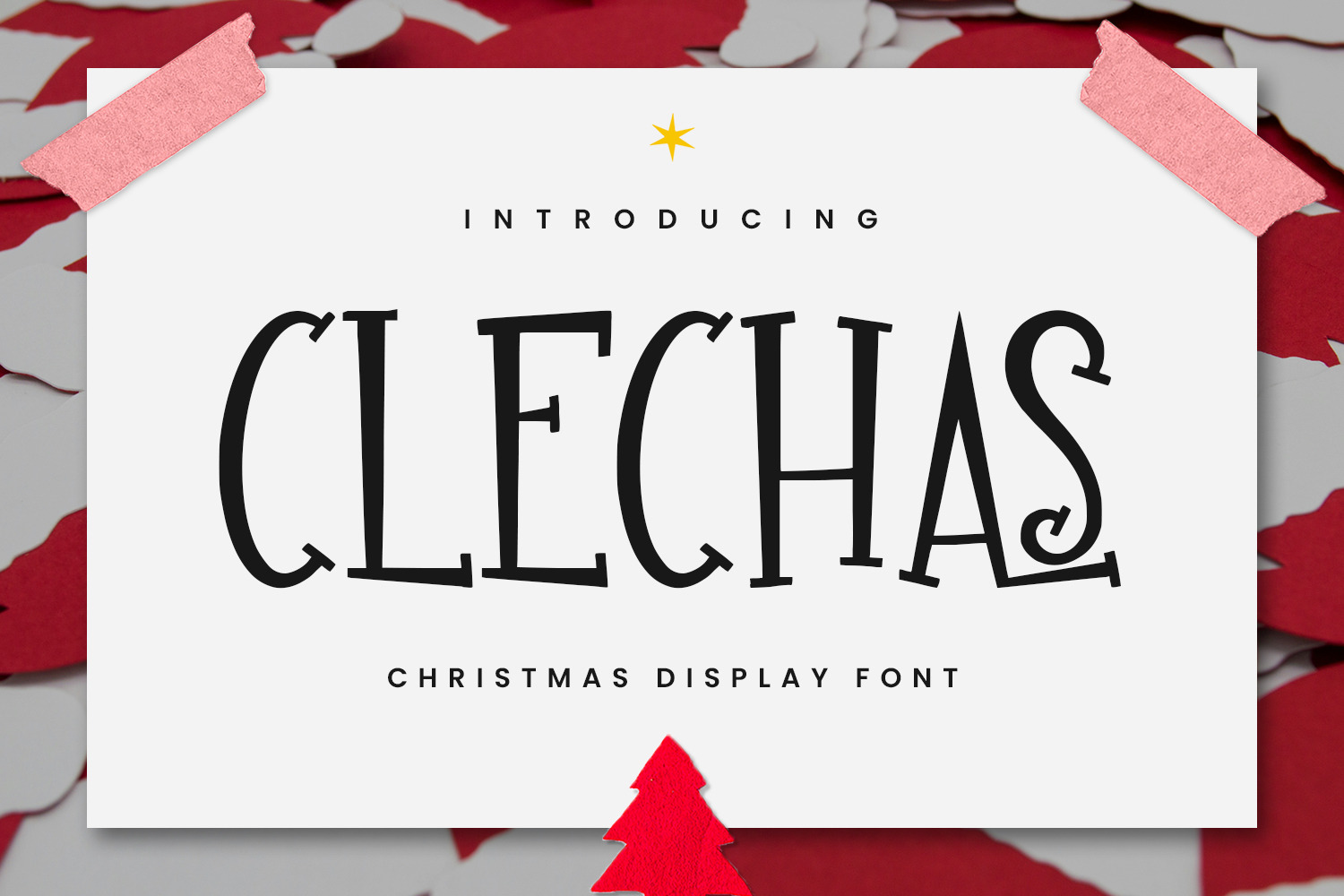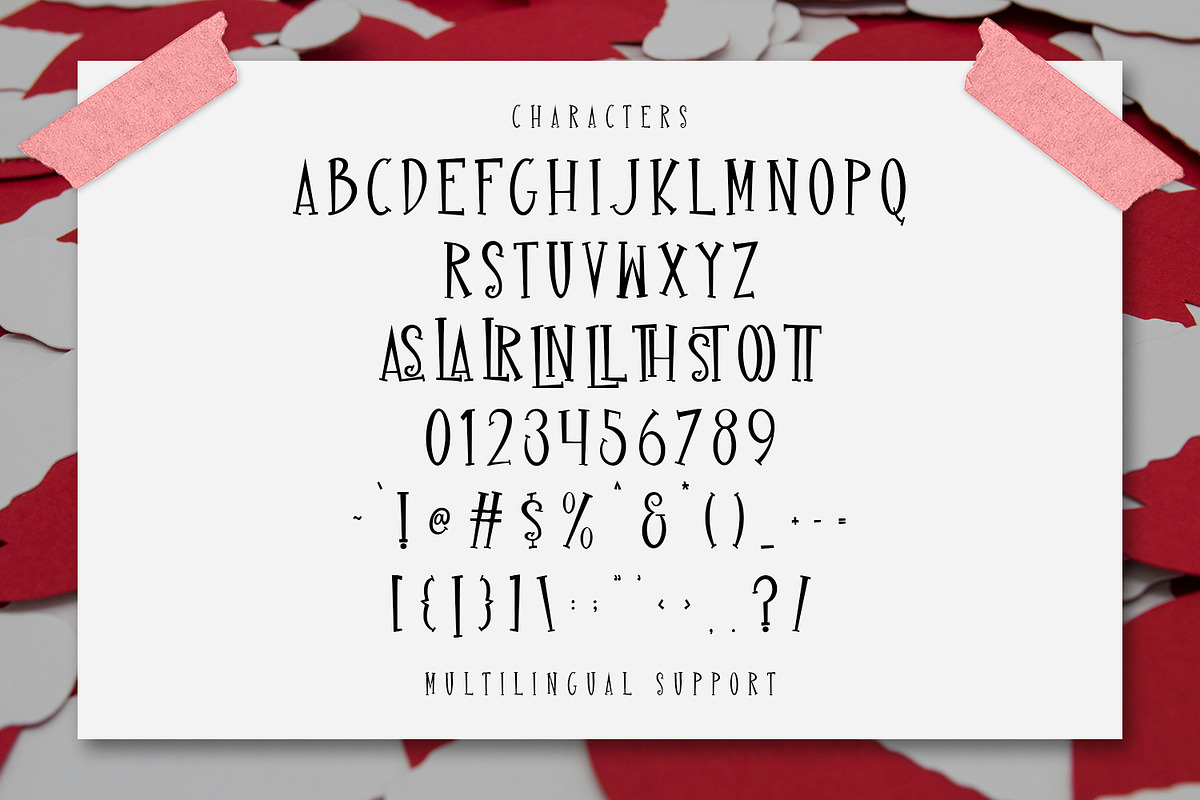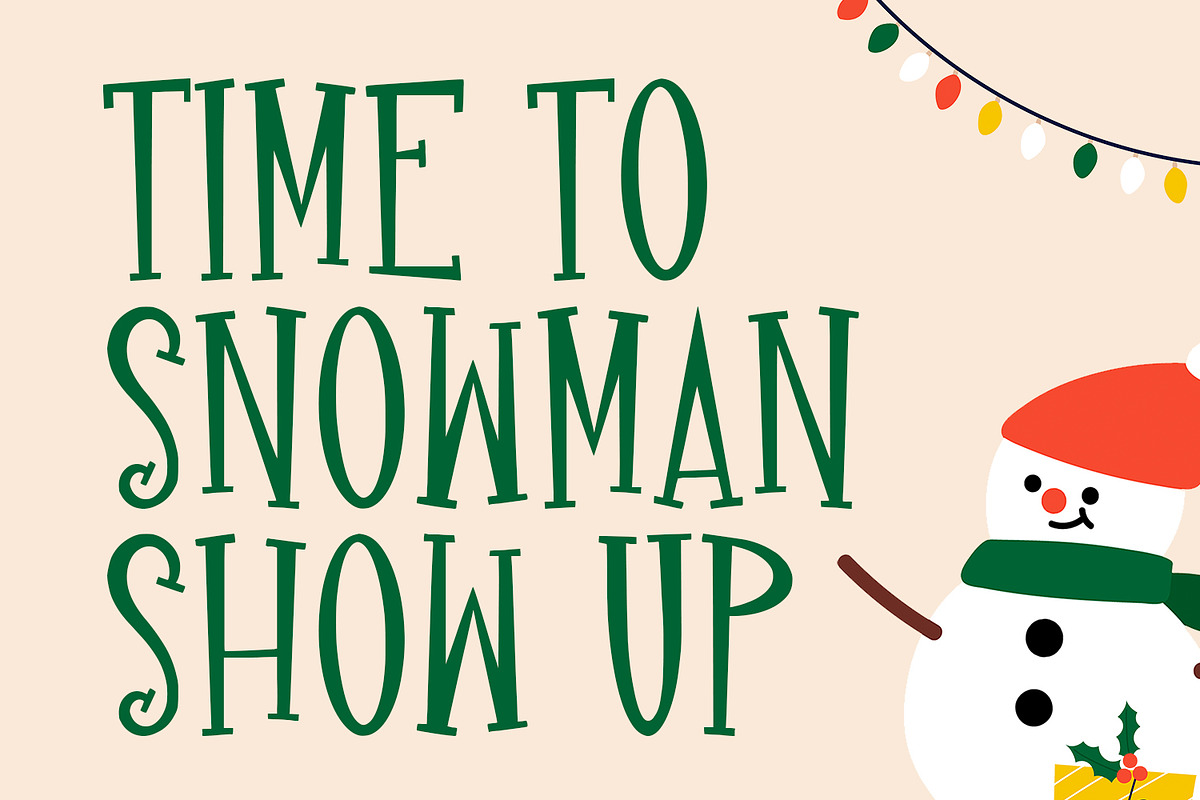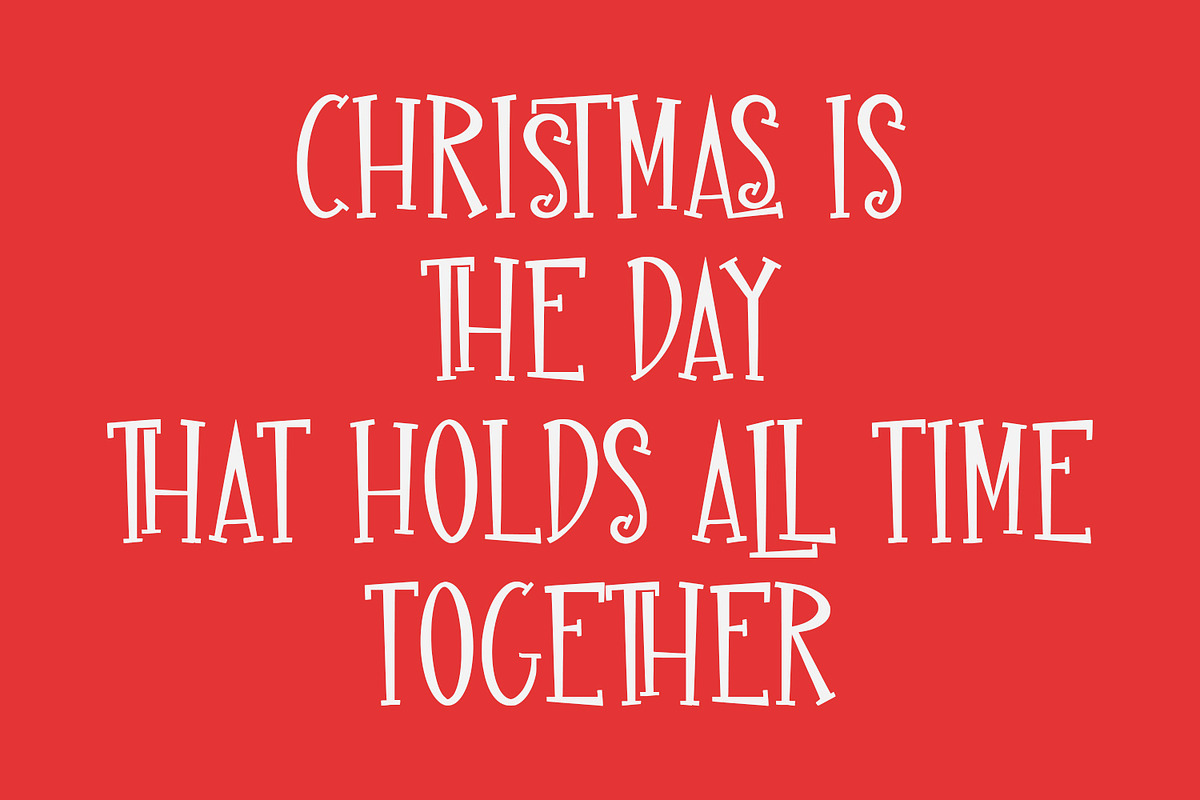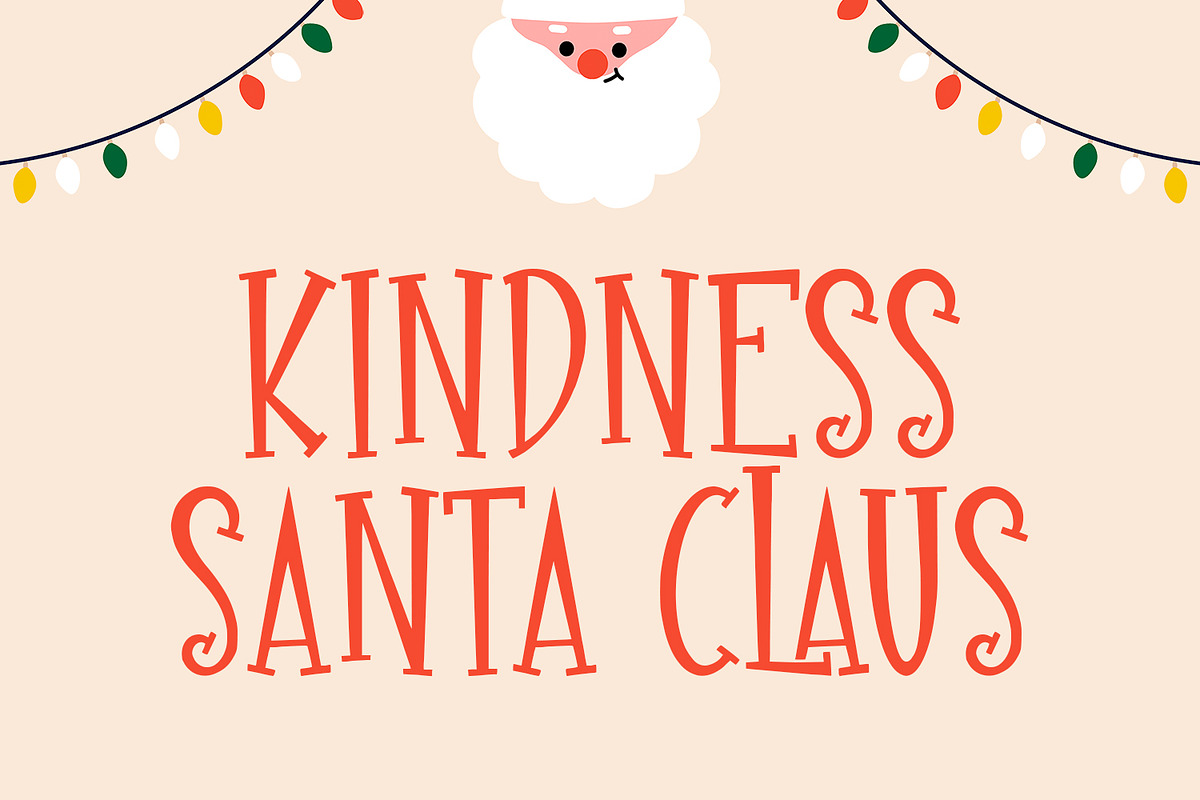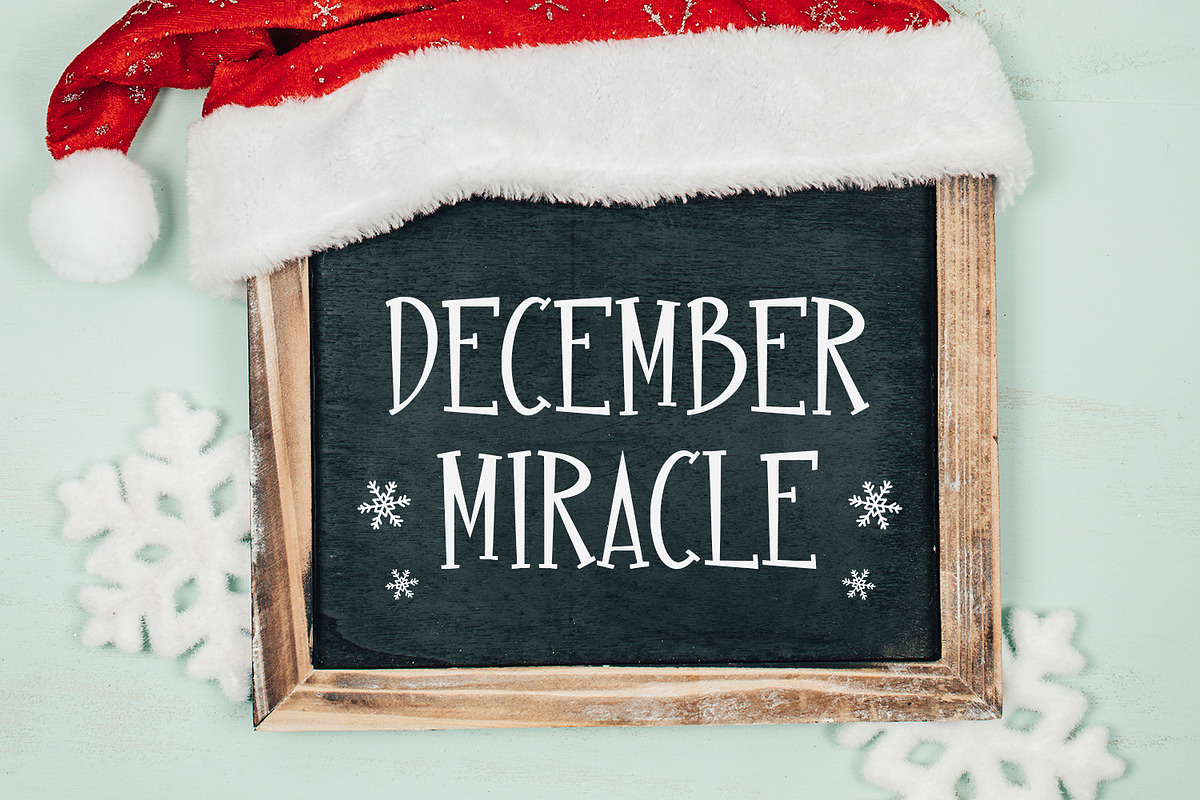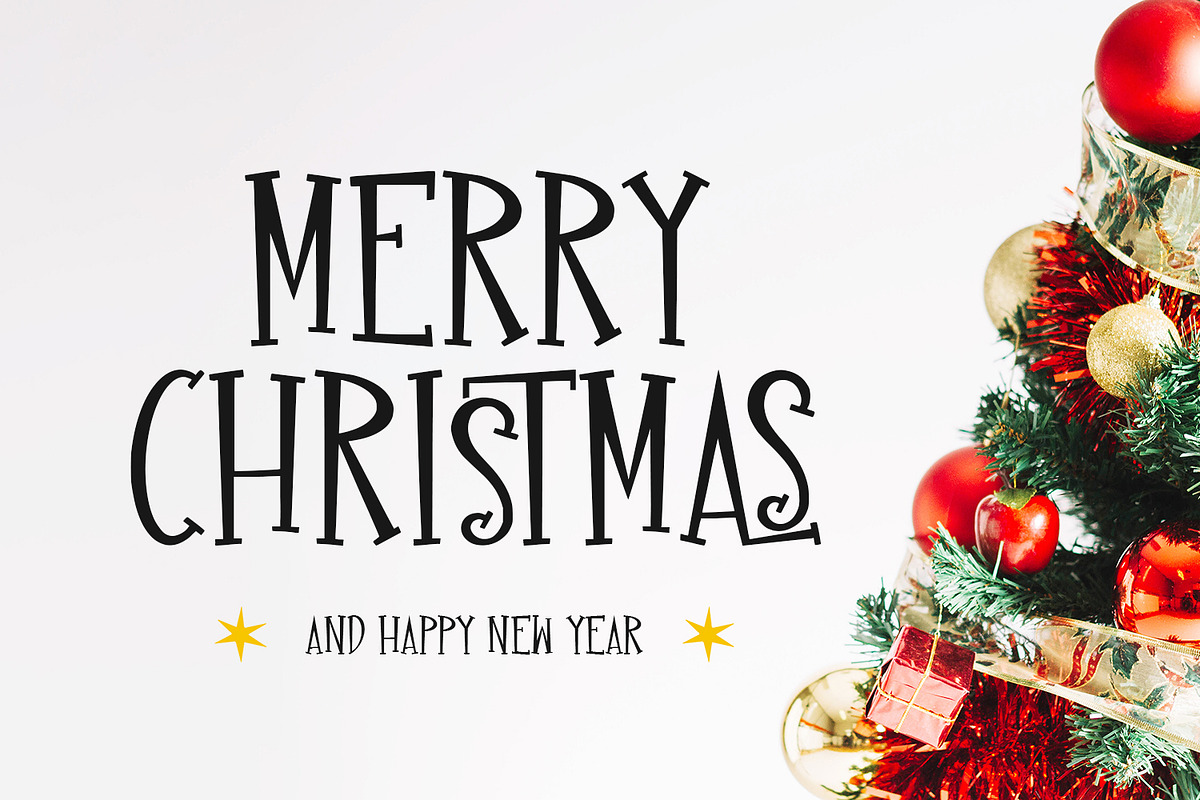
Clechas Christmas Display Font
Clechas is a handwritten sans christmas display font. With simple stroke, fun character with a awesome ligatures. To give you an extra creative work Clechas font support multilingual more than 100+ language. This font is good for logo design, Social media, Movie Titles, Books Titles, a short text even a long text letter and good for your secondary text font with sans or serif. Make a stunning work with Clechas font.